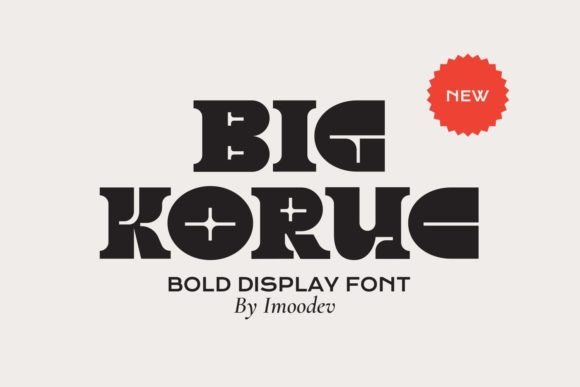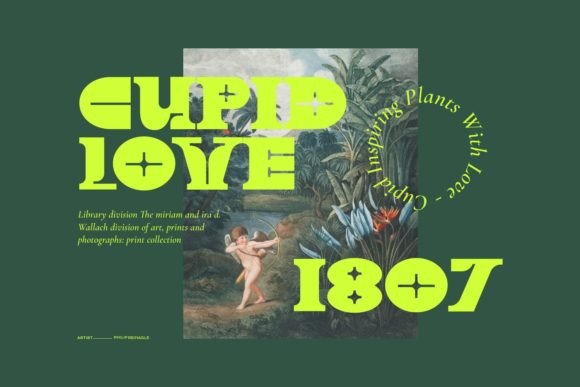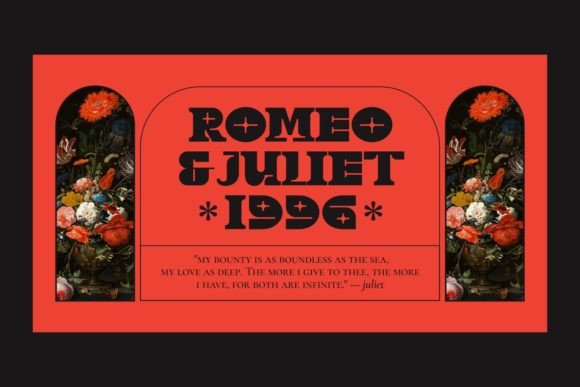
Big Koruc: A Bold and Elegant Slab Serif Font
Big Koruc is a bold slab serif font featuring visual elegance and smooth curves. This versatile typeface works effectively in both large and small sizes, making it perfect for various business and creative applications.
Key Features of Big Koruc
- Bold Design: Offers commanding letterforms with smooth curves.
- Visual Elegance: Brings sophisticated style to designs.
- Versatile Scaling: Works well in both large and small sizes.
- Wide Application: Adapts to numerous business sectors.
Best Uses for Big Koruc
Thanks to its versatile characteristics, Big Koruc works especially well for:
- Professional logos
- Elegant invitations
- Magazine layouts
- Product packaging
- Photography branding
- Website design
- Social media content
When using Big Koruc in your designs, keep these tips in mind:
- Take advantage of its bold character for impactful typography.
- Use its smooth curves for elegant designs.
- Let its versatile scaling enhance both display and body text.
- Explore its potential across different business applications.
To sum up, Big Koruc is an excellent choice for designers seeking a bold and elegant slab serif font. Its ability to work effectively in both large and small sizes makes it perfect for various projects. Whether you’re creating corporate materials, designing product packaging, or developing creative content, Big Koruc offers the perfect blend of boldness and elegance.
Furthermore, Big Koruc’s distinctive design allows it to shine in contexts where both impact and sophistication are key. From editorial designs to social media content, this font can elevate your projects with its refined style. Also, its bold yet elegant appearance works particularly well in designs that aim to make a sophisticated impact.
In conclusion, Big Koruc truly captures the essence of bold elegance in slab serif typography. Its versatility across different applications shows how well it can serve various creative and business needs. Therefore, for those wanting to add a touch of bold sophistication to their work, Big Koruc can enhance any design with its distinctive style. Ultimately, it’s perfect for designers aiming to make an elegant, professional impact across a wide range of projects.